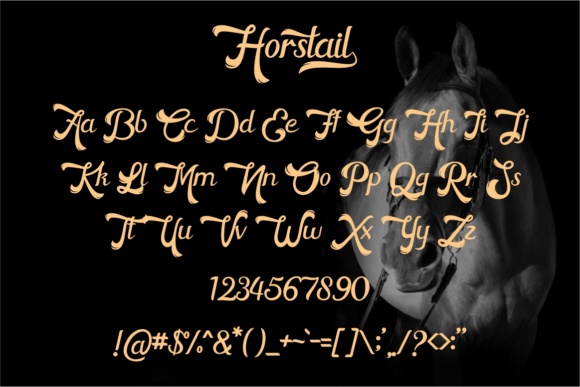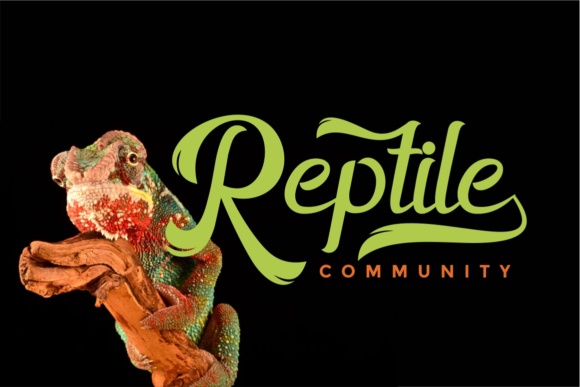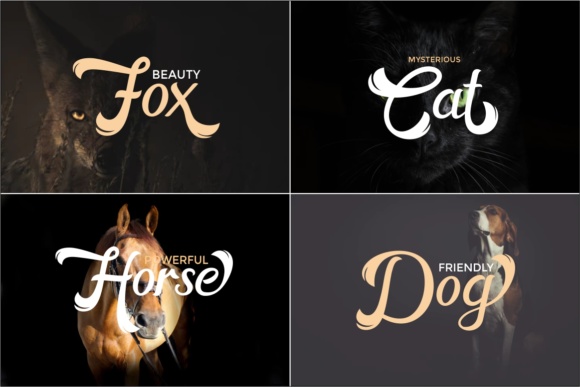
Introduction to Horstail Font
As a designer, there’s nothing quite like the thrill of stumbling upon the perfect font for your next creative project. It’s like finding a hidden treasure, a secret ingredient that elevates your entire design from ordinary to extraordinary. And for those who love animals, the Horstail Font is a dream come true.
With its beautiful script style and swash tail that resembles an animal, the Horstail Font is the perfect addition to any design. Whether you’re creating a logo, title, or tagline, this versatile font is sure to bring a touch of whimsy and personality to your work. And the best part? It’s available for free download, making it a valuable resource for designers of all levels.
Key Features of Horstail Font
- Unique, hand-drawn design with a creative touch, perfect for any project requiring a personal touch.
- Horstail Font is ideal for use in logos, branding materials, and other creative projects where a distinctive, handwritten feel is desired.
- Its versatility and high-quality design make it a valuable addition to any designer’s toolkit.
As a designer, I’m always on the lookout for high-quality design resources to elevate my creative projects. Recently, I stumbled upon the Horstail Font, and I’m excited to share my thoughts on this free download.
What works well: ✨ The Horstail Font is a versatile and modern script font that’s perfect for adding a touch of elegance to any design. Its high-quality strokes and subtle flair make it ideal for branding, packaging, and editorial projects. The transparent background feature is also a nice bonus, allowing for seamless integration with background images.
What doesn’t work well: ⚠️ One limitation I noticed is that the font’s expressiveness can be overwhelming in certain contexts. It’s essential to balance its flair with simpler typography to avoid visual clutter. Additionally, the font’s character set is not as extensive as some other popular script fonts, which might be a concern for designers working on complex projects.
Overall impression: The Horstail Font is a valuable addition to any designer’s toolkit. Its unique character and high-quality design make it a great choice for creative projects that require a touch of sophistication. With some careful planning and balance, this font can be a game-changer for your next design project.
Designers looking for a free, high-quality script font will appreciate the Horstail Font’s unique features and design. It’s an excellent resource for:
- Branding and identity projects
- Editorial and publishing projects
- Packaging and labeling projects
The Horstail Font is a versatile design resource ideal for creative projects that require a unique touch. This high-quality font can be downloaded for free and features a transparent background, making it easy to incorporate into various designs.
To get the most out of the Horstail Font, experiment with different font sizes, colors, and styles to create a unique look.
The Horstail Font is ideal for use in creative projects, such as:
1. Logos and branding materials.
2. Social media graphics and posts.
3. Infographics and presentations.